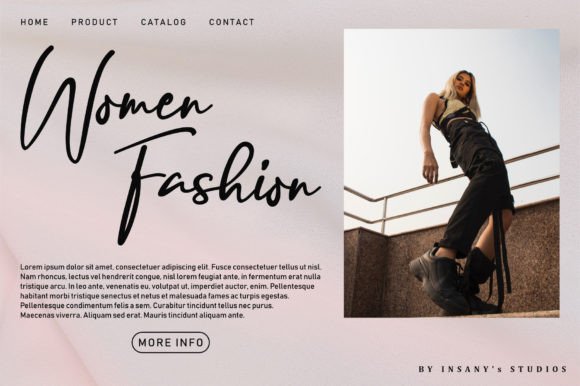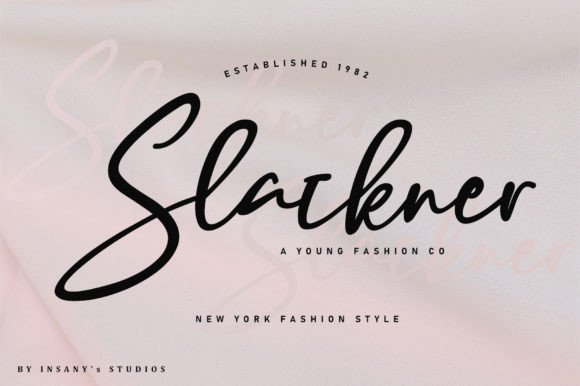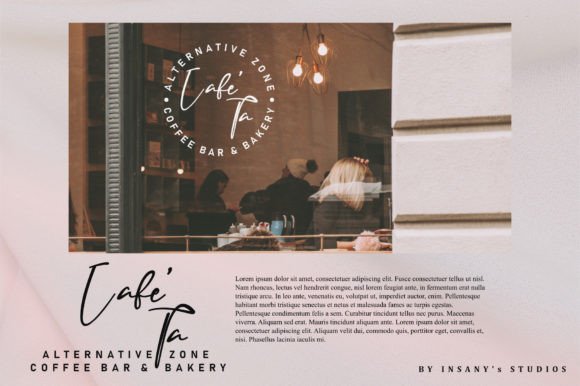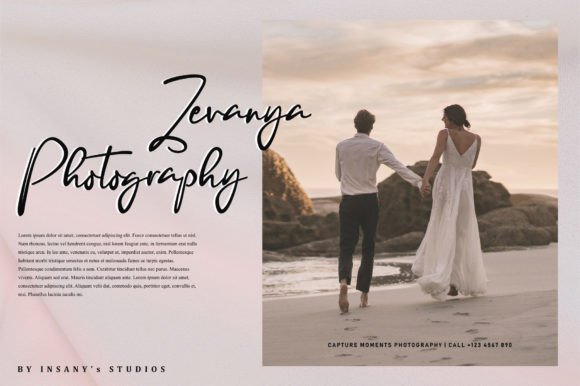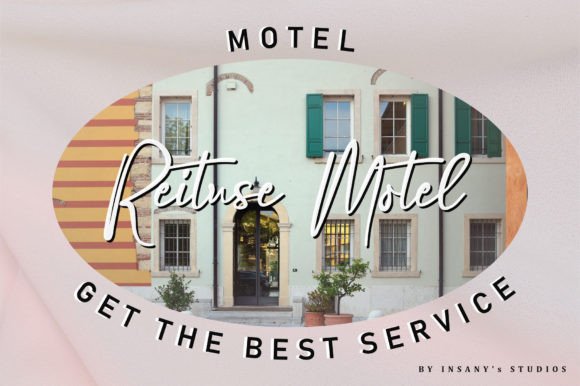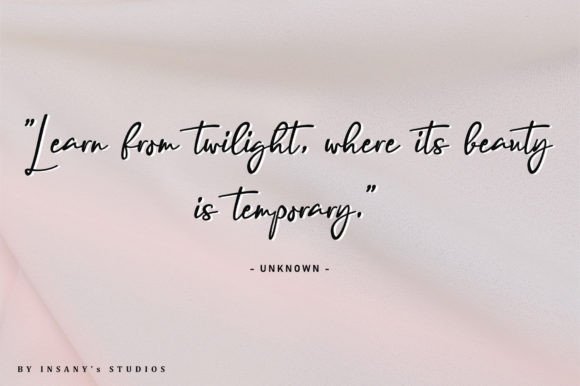
Introducing Greazty Font: Elevate Your Designs with Elegance and Simplicity
In the world of typography, finding the perfect font that adds a touch of elegance and uniqueness to your design projects can be a daunting task. However, if you’re looking for a simple yet sophisticated script font, look no further than Greazty Font. Designed to strike the perfect balance between style and readability, Greazty is an excellent choice for designers and crafters seeking to enhance the beauty of their projects.
What is Greazty Font?
Greazty is a simple and elegant script font that boasts a balanced and varied design. Not too thin and not too thick, Greazty’s strokes are carefully crafted to provide a harmonious visual experience. This font was designed to add a unique charm to any design project, making it an ideal choice for a wide range of applications, from branding and advertising to packaging and digital media.
Key Features of Greazty Font
- Balanced Design: Greazty’s design is carefully balanced to ensure that it’s not too thin or too thick, making it perfect for use in various design projects.
- Elegant and Simple: Greazty’s script font is both elegant and simple, making it easy to read and understand.
- Varied Strokes: The font features varied strokes that add a touch of sophistication and uniqueness to your designs.
- Highly Versatile: Greazty can be used in a wide range of design projects, from print to digital media.
Benefits of Using Greazty Font
Using Greazty Font in your design projects can bring numerous benefits. Here are a few:
- Enhance Readability: Greazty’s clear and simple design makes it easy to read, even at small font sizes.
- Add Elegance: Greazty’s elegant design adds a touch of sophistication to your designs, making them stand out from the crowd.
- Increase Versatility: With Greazty, you can create a wide range of designs, from simple and minimalist to complex and ornate.
- Save Time: Greazty’s simplicity and elegance can save you time in the design process, as you won’t need to spend hours searching for the perfect font.
Who Can Benefit from Greazty Font?
Greazty Font is an excellent choice for a wide range of designers and crafters, including:
- Graphic Designers: Greazty is perfect for graphic designers looking to add a touch of elegance to their designs.
- Digital Artists: Digital artists can use Greazty to add a unique charm to their artwork.
- Crafters: Crafters can use Greazty to create beautiful and unique handmade projects.
- Marketers: Marketers can use Greazty to create eye-catching advertising materials.
How to Use Greazty Font
Using Greazty Font is easy. Here are a few tips:
- Pair it with Other Fonts: Greazty pairs well with other fonts, making it easy to create unique and interesting typography.
- Experiment with Colors: Greazty looks great in a variety of colors, so don’t be afraid to experiment and find the perfect color scheme for your design.
- Use it in Different Sizes: Greazty is clear and readable at a wide range of font sizes, making it perfect for use in both print and digital media.
In conclusion, Greazty Font is a simple and elegant script font that’s perfect for designers and crafters looking to add a touch of sophistication to their projects. With its balanced design, elegant strokes, and versatility, Greazty is an excellent choice for a wide range of design applications. Whether you’re a graphic designer, digital artist, crafter, or marketer, Greazty Font is sure to become a valuable addition to your design toolkit.